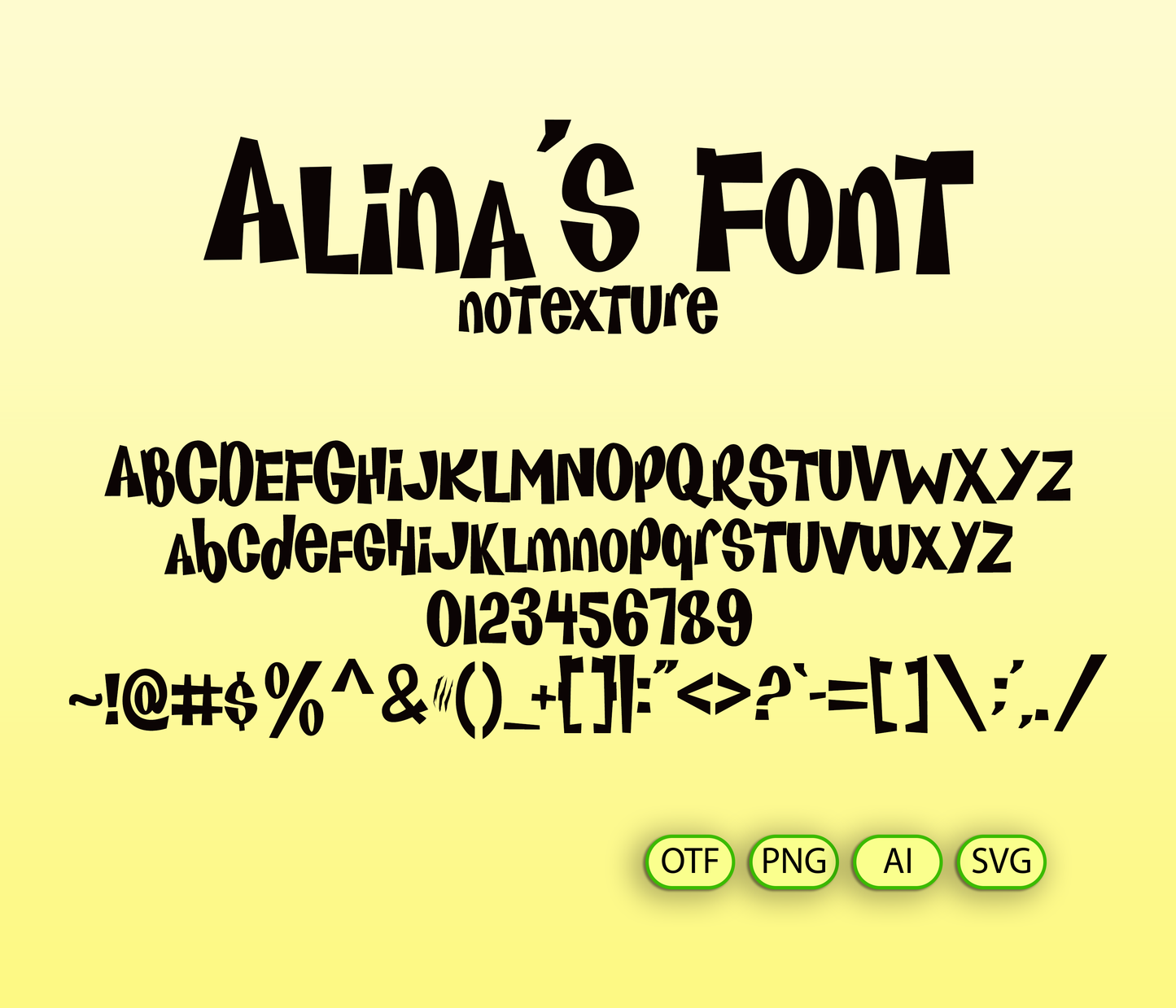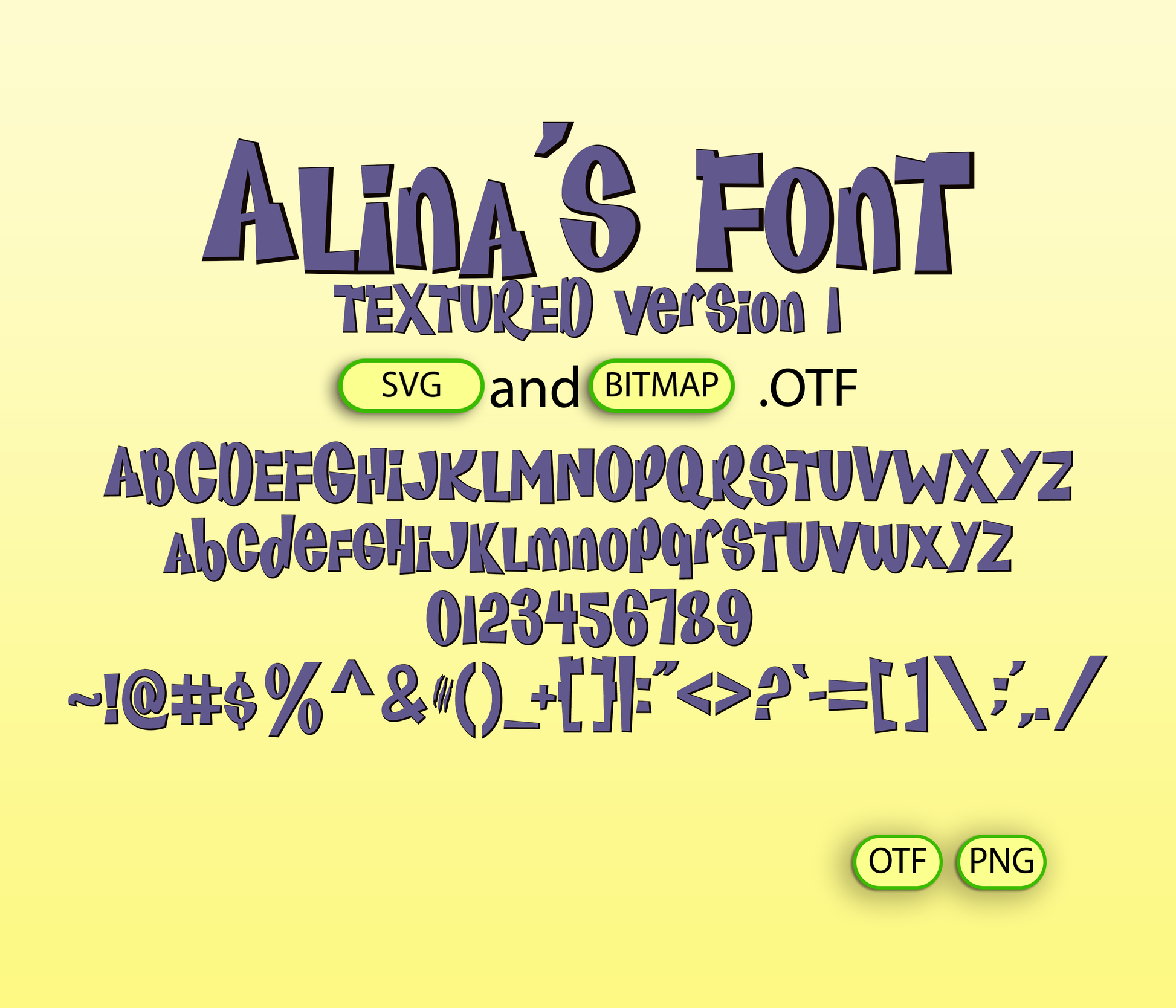
Feline Scrawl Font Textured
Dive into the whimsical world of animated feline adventures with our Feline Scrawl font. This playful typeface captures the essence of mischievous cat siblings and their hilarious escapades, perfect for projects that aim to evoke the quirky charm of cartoon cats. Ideal for children's book covers, animated series promotions, pet-themed designs, and any creative endeavor seeking to add a touch of feline fun.
Our Feline Scrawl font features lively, hand-drawn characters with a scratchy texture, reflecting the energetic and sometimes chaotic nature of playful cats. Ideal for:
The Feline Scrawl font includes both textured and non-textured variants, ensuring compatibility with all design software, including popular online design platforms. This feature allows for easy incorporation into designs for users of all skill levels.
Whether you're crafting promotional materials for a pet-themed event, designing merchandise for cat lovers, or adding a playful touch to personal projects, this font communicates the spirited and mischievous nature of our feline friends. Ready to bring the charm of cartoon cats to your creations? This font is your key to fun, impactful design.